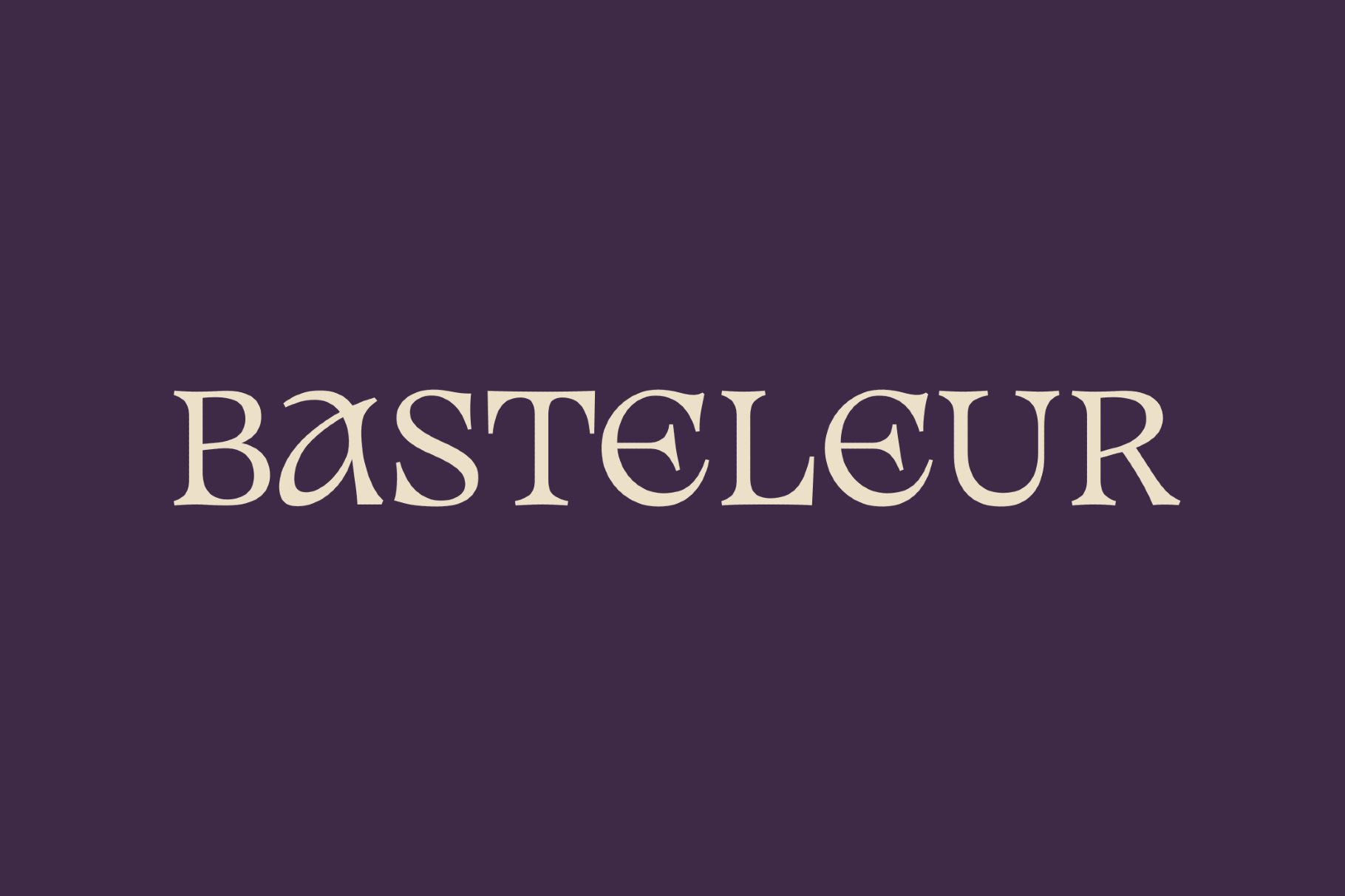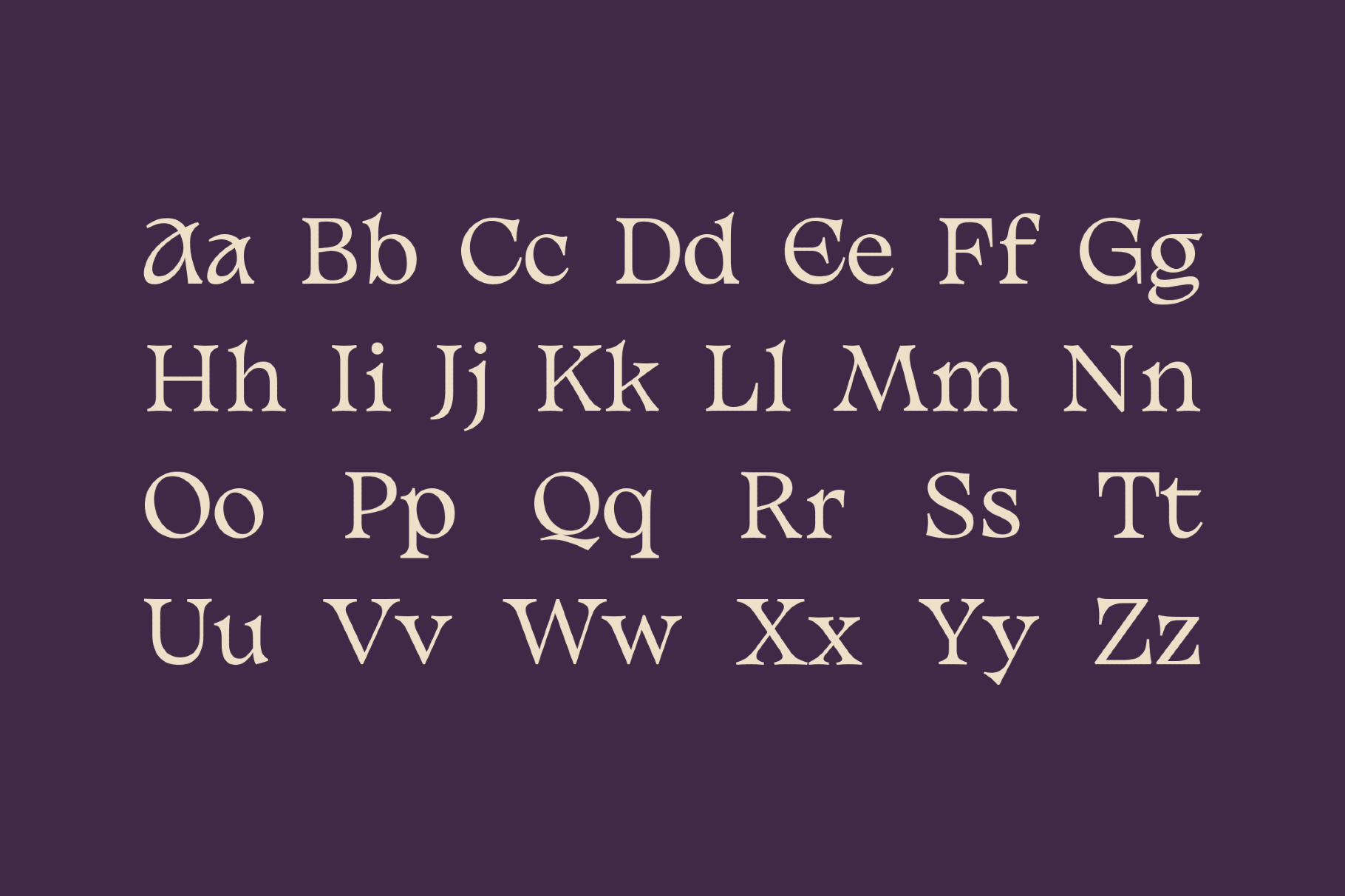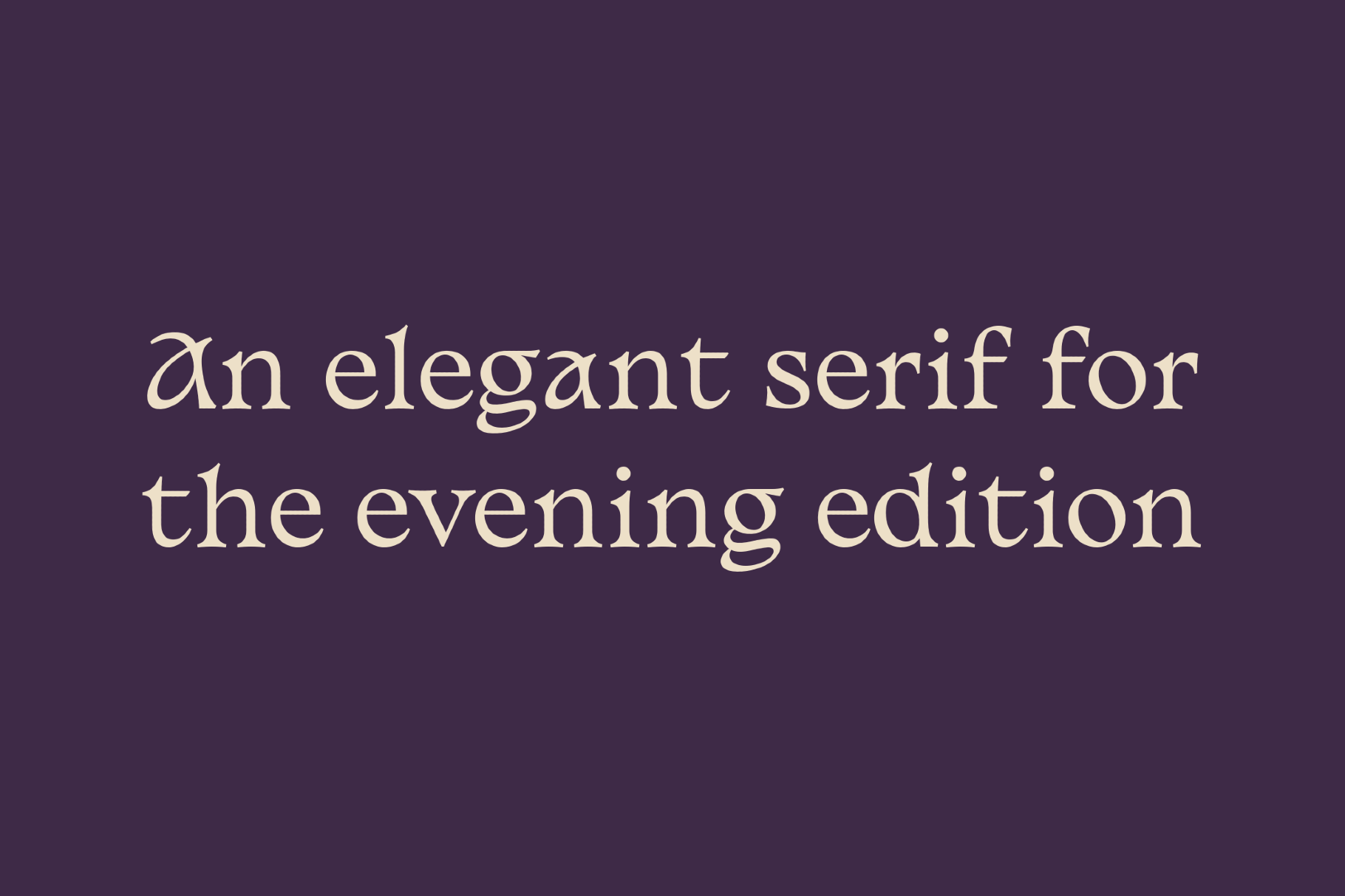
Basteleur - Free Old-Style Book Font
Basteleur was drawn the Tarot de Marseille in mind — named for Le Bateleur, the deck's first card — and lands between a medieval-ish serif and the rounded weight of Cooper Black.
Keussel's design for Velvetyne came in two moods after a 2022 update: a soft, heavy Bold and a lighter, sharper Moonlight cut. It suits book covers, album artwork, poster headlines, zine and graphic-novel titles, tarot and occult branding, event posters, logo work, merch prints, and editorial display.
- 2 styles: Bold and Moonlight;
- uppercase and lowercase letters;
- numbers, punctuation, and symbols;
- multilingual support across the Latin script.